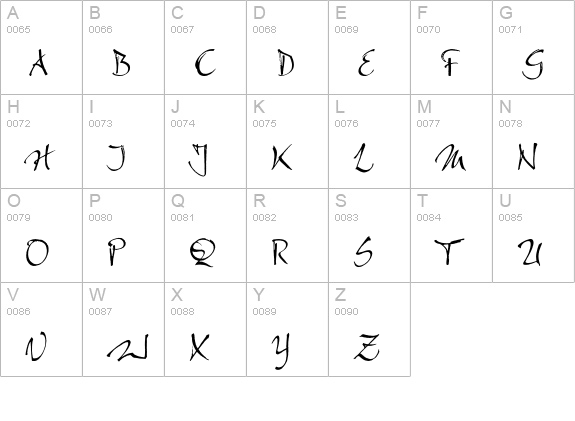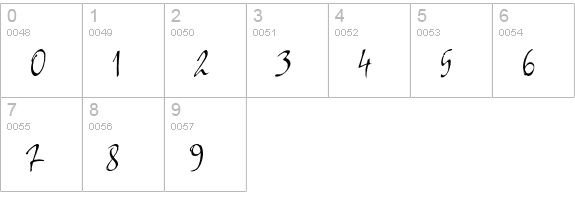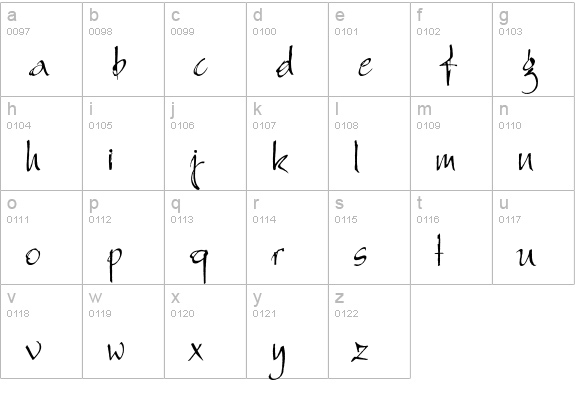
Bergell Std is a stunning and versatile font that exudes elegance and sophistication. With its clean lines and classic design, Bergell Std is perfect for a wide range of design projects, from branding to editorial design. Its timeless appeal makes it a go-to choice for designers looking to add a touch of class to their work. What sets Bergell Std apart is not only its impeccable design but also the fact that it is available for free. Yes, you read that right! This exquisite font can be downloaded for free at FontsMarket.com, making it accessible to designers of all levels. Whether you're working on a personal project or a client's design, Bergell Std is sure to elevate your work and leave a lasting impression. Don't miss out on the opportunity to enhance your design projects with Bergell Std. Download this beautiful font for free today and see for yourself the difference it can make in your work.